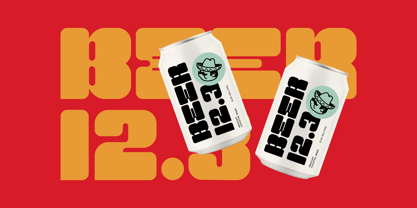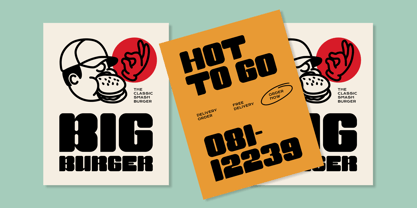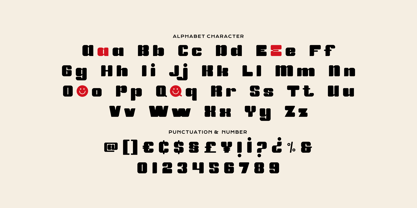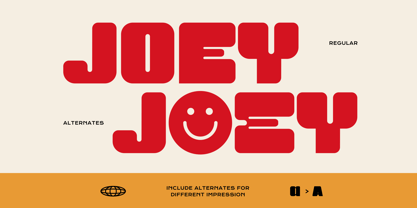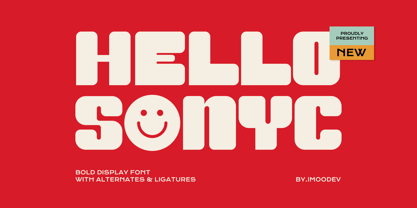
Hello Sonyc
by Imoodev
The Hello Sonyc Font Family was designed by Aulia Savira Putri and published by Imoodev. Hello Sonyc contains 1 styles. More about this family
Hello Sonyc is a bold playful display typeface that fuses retro funk with modern modularity. The inclusion of ligatures and alternates (like the smiley face "O") adds quirky, customizable flair, giving it both expressive versatility and standout character.
This font perfect for greeting cards, packaging, stickers, children’s branding, funky event posters or party invites, etc.